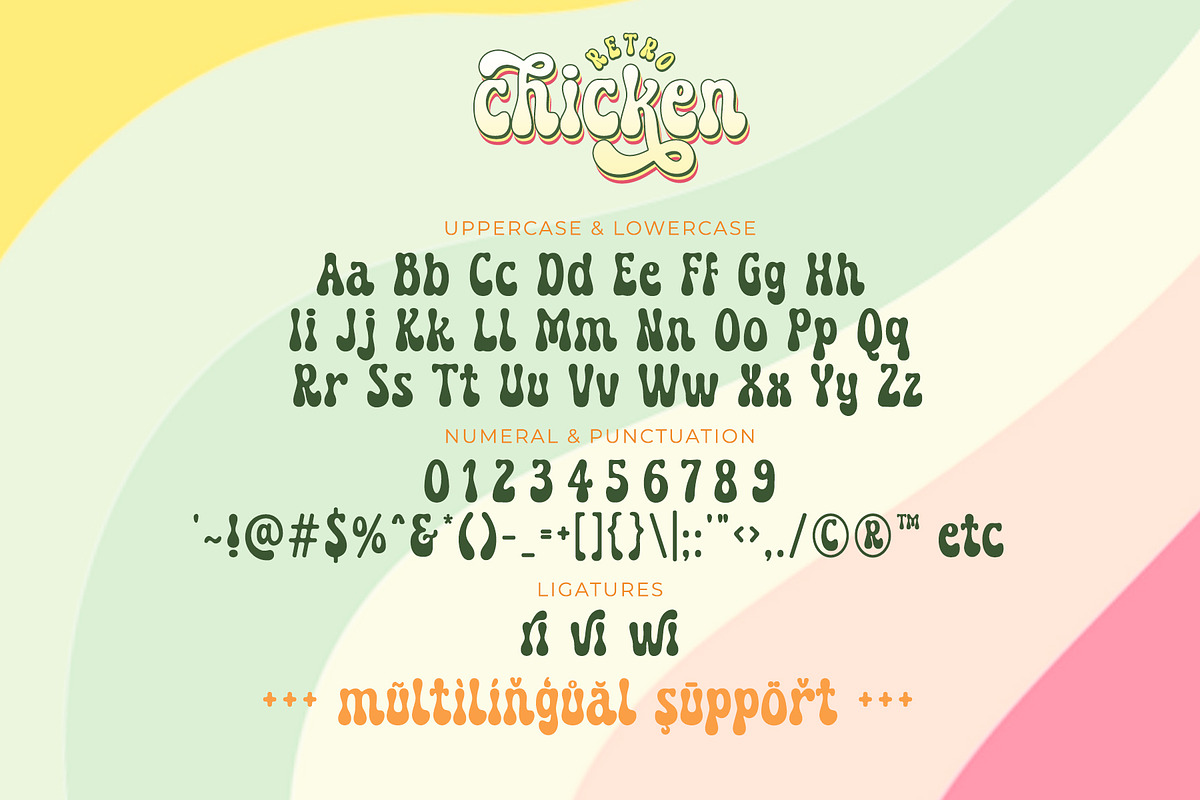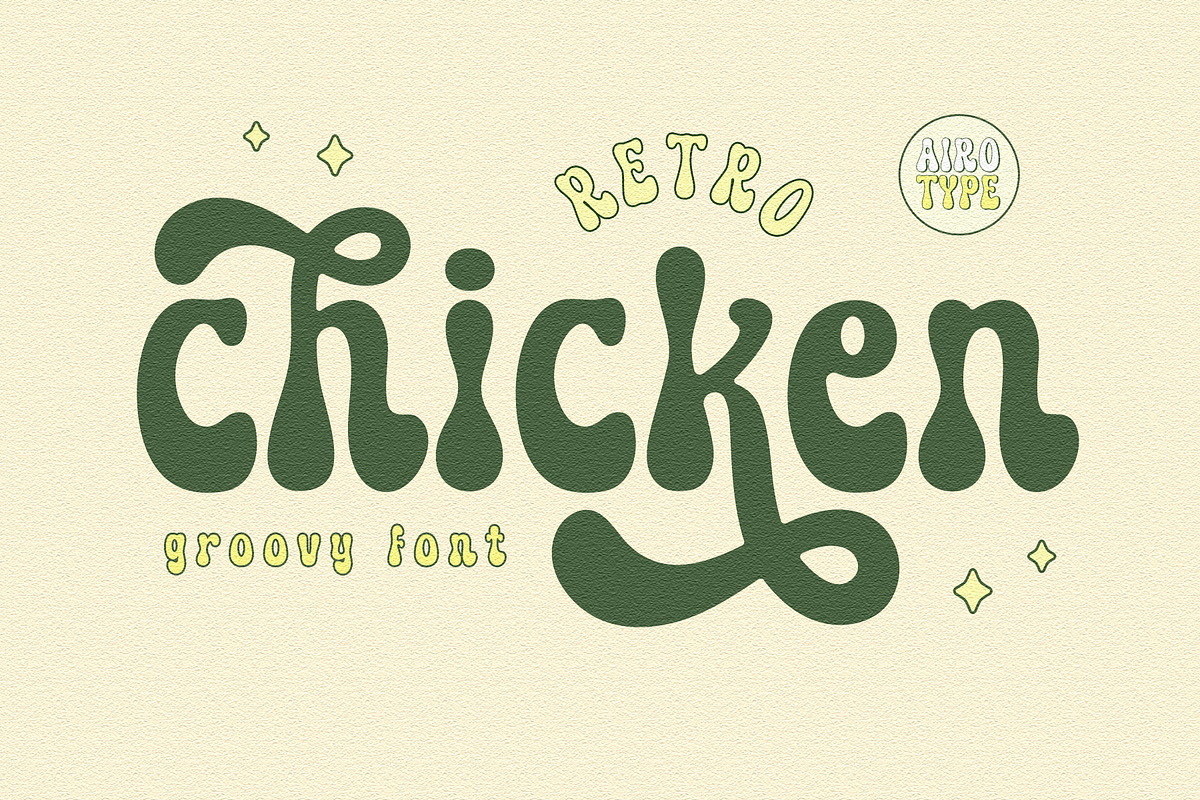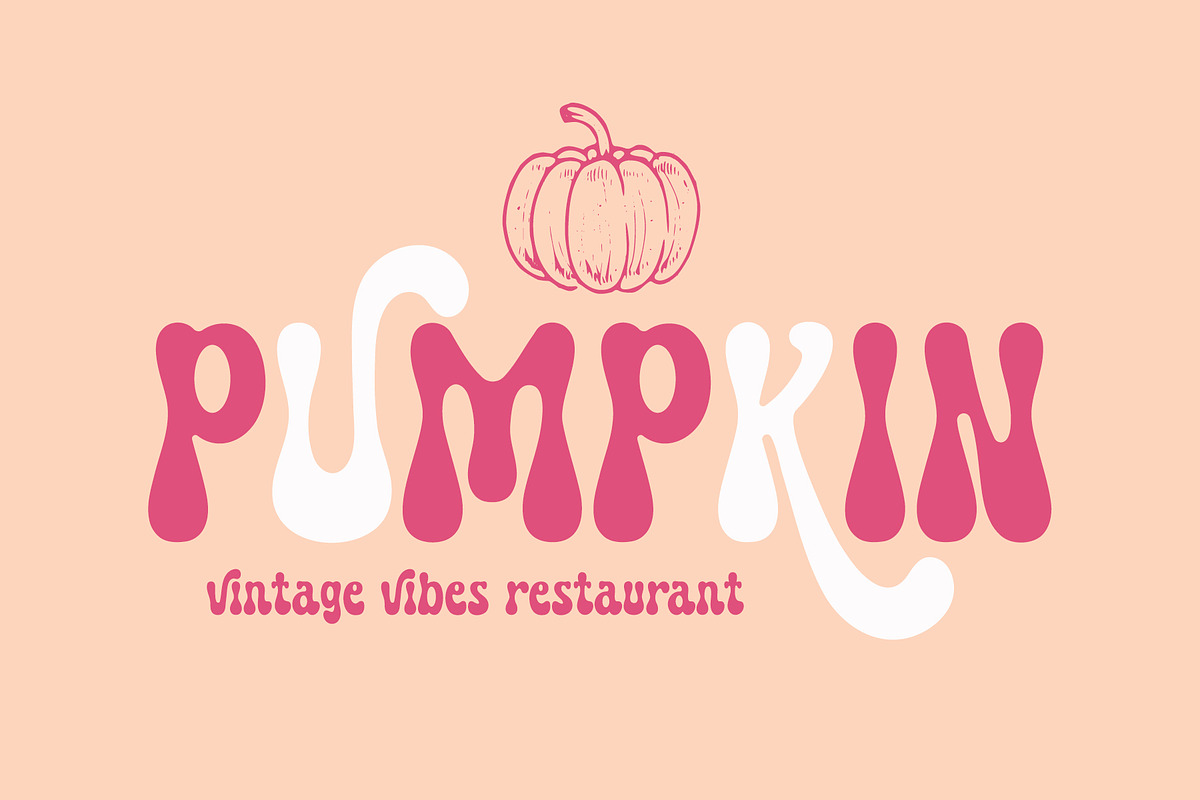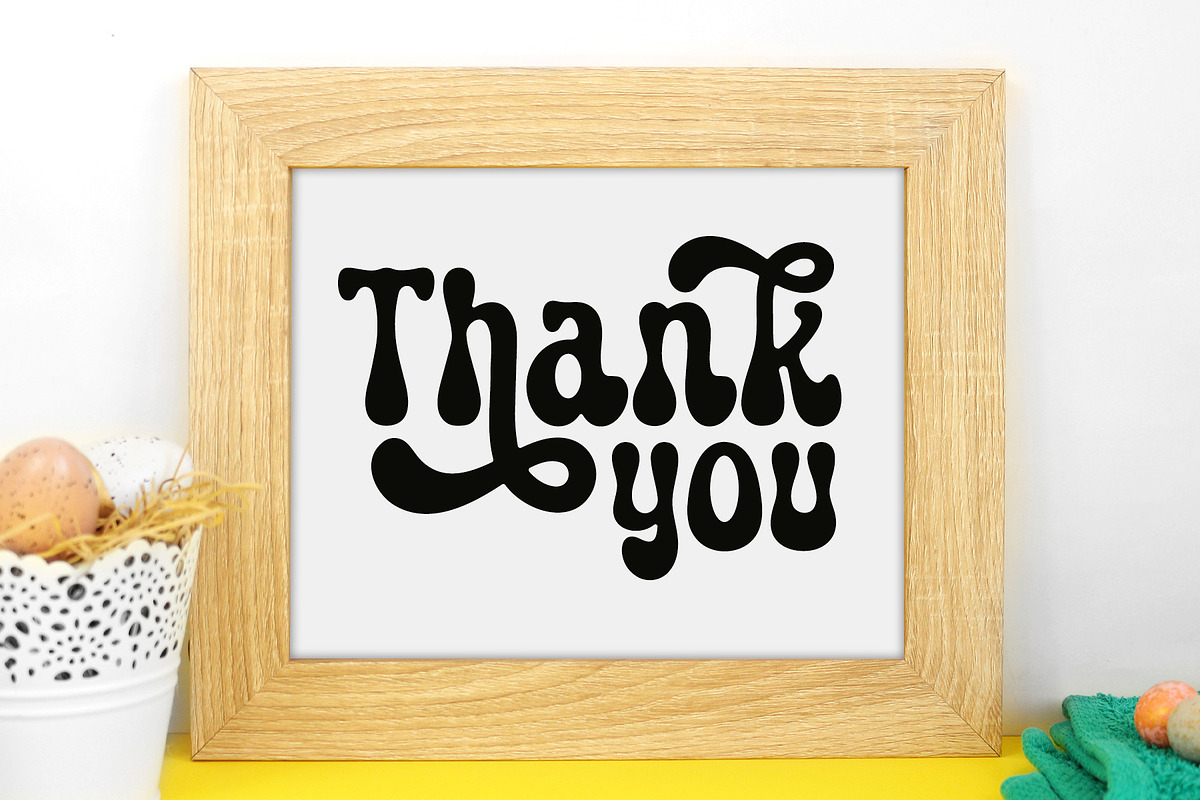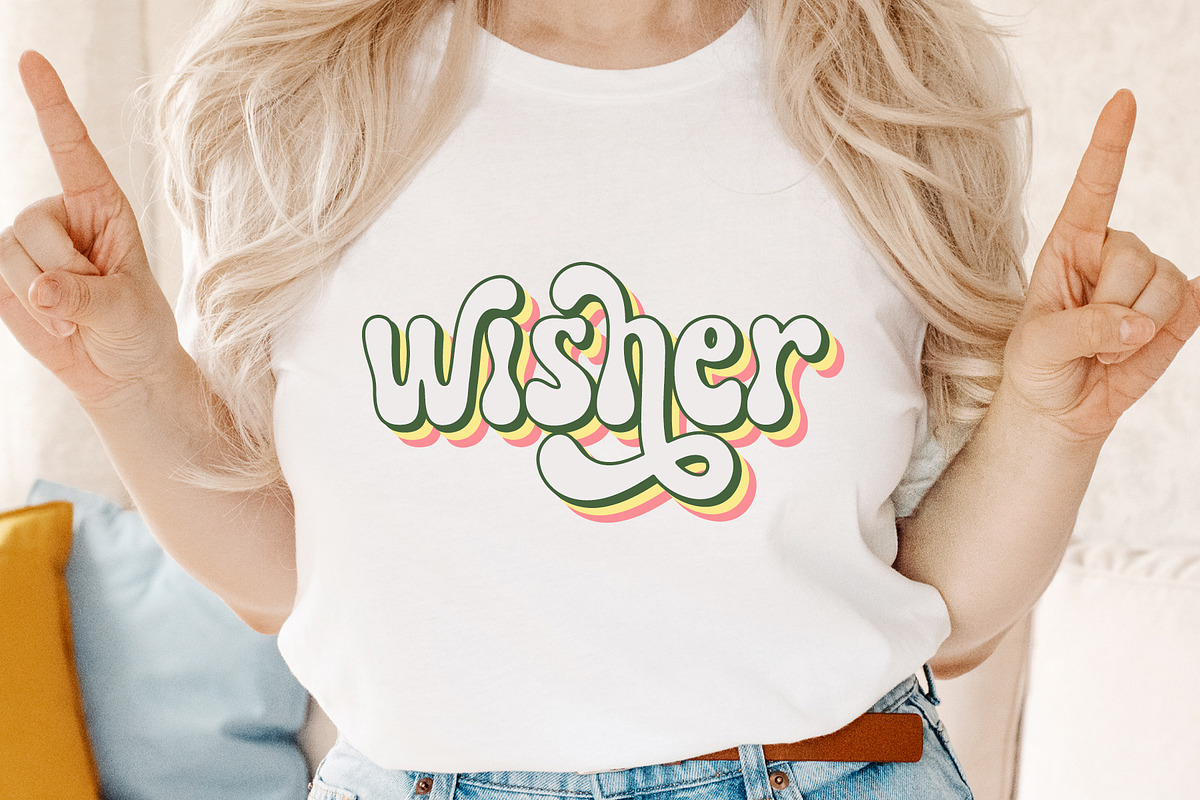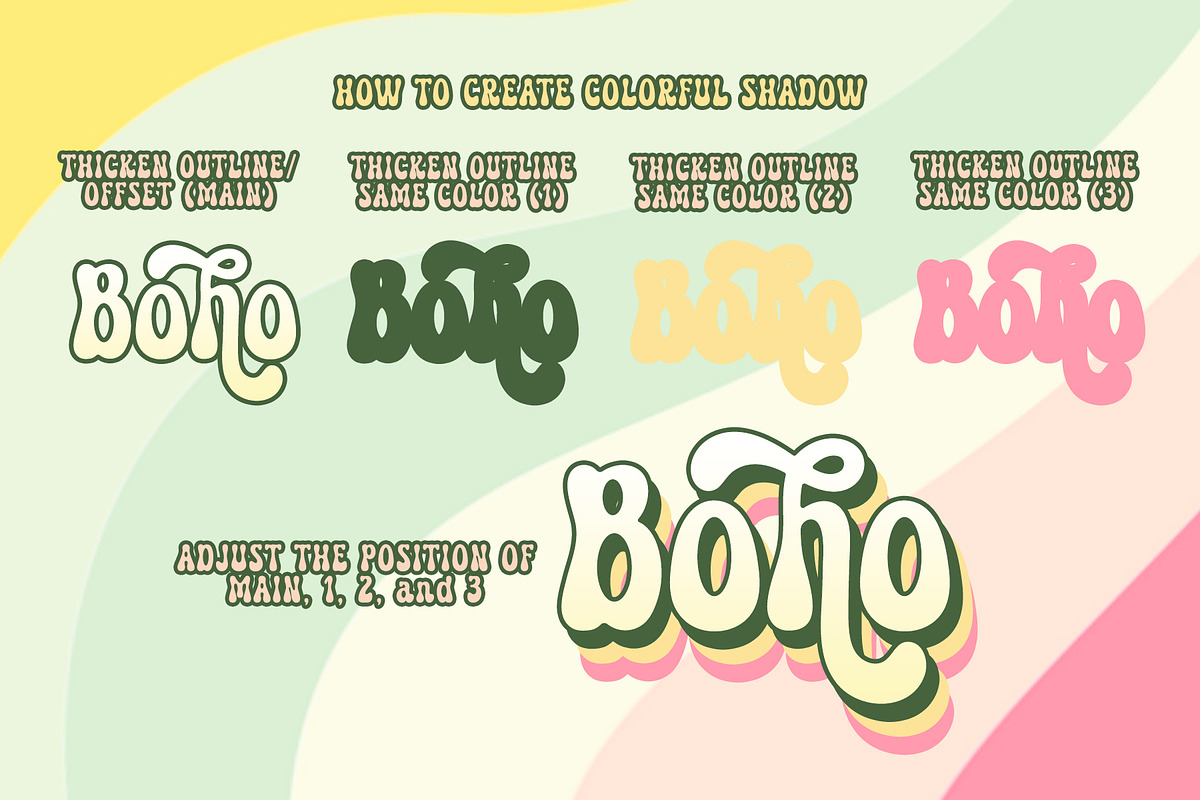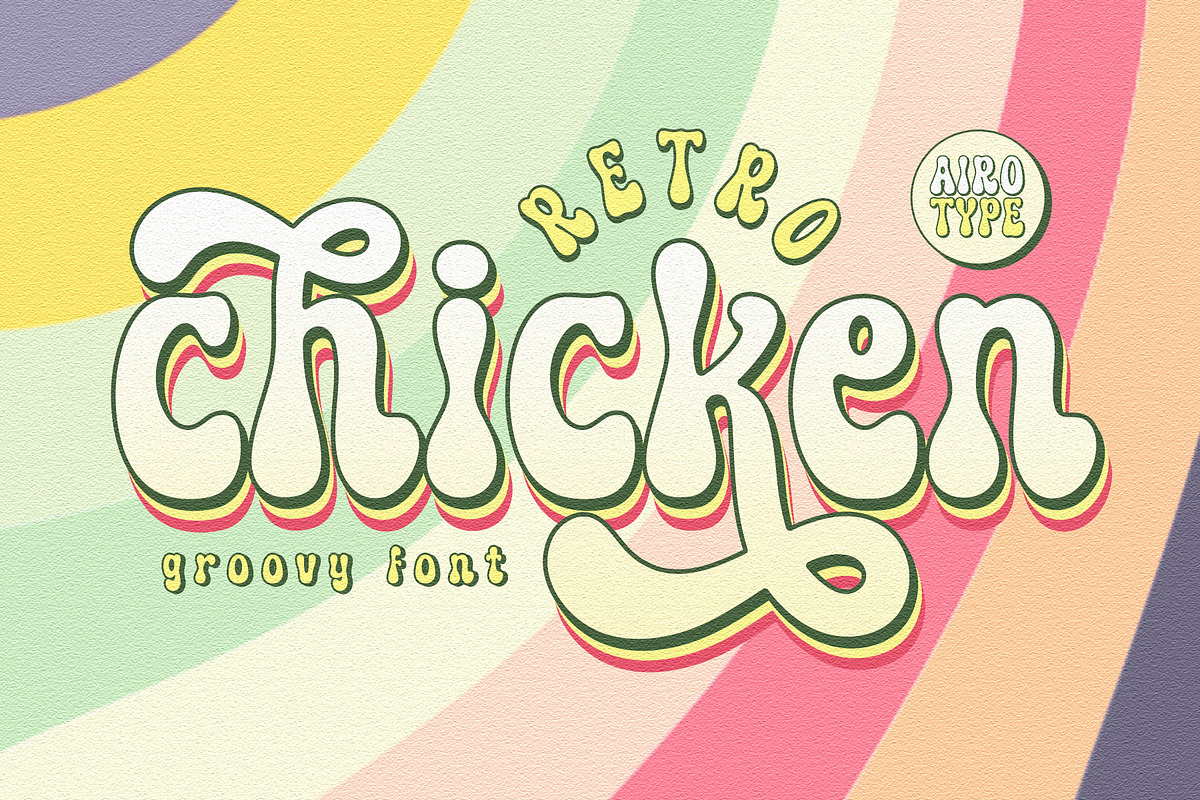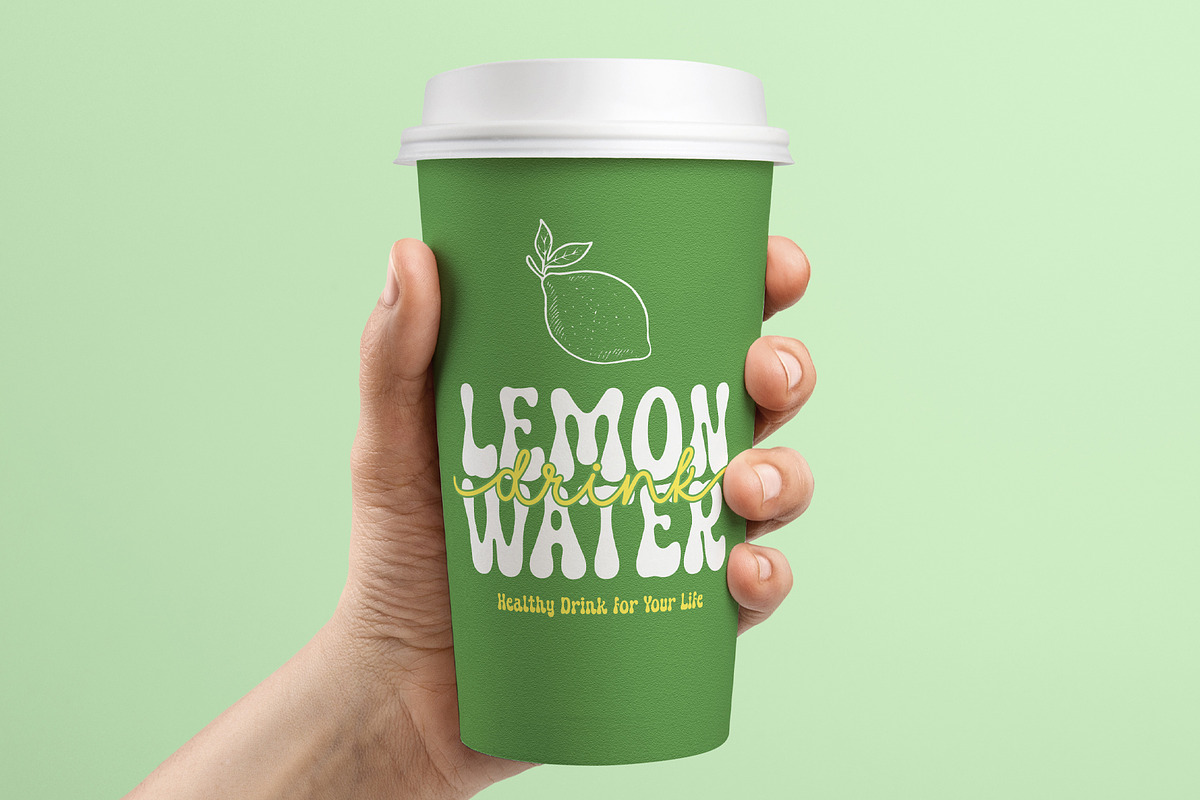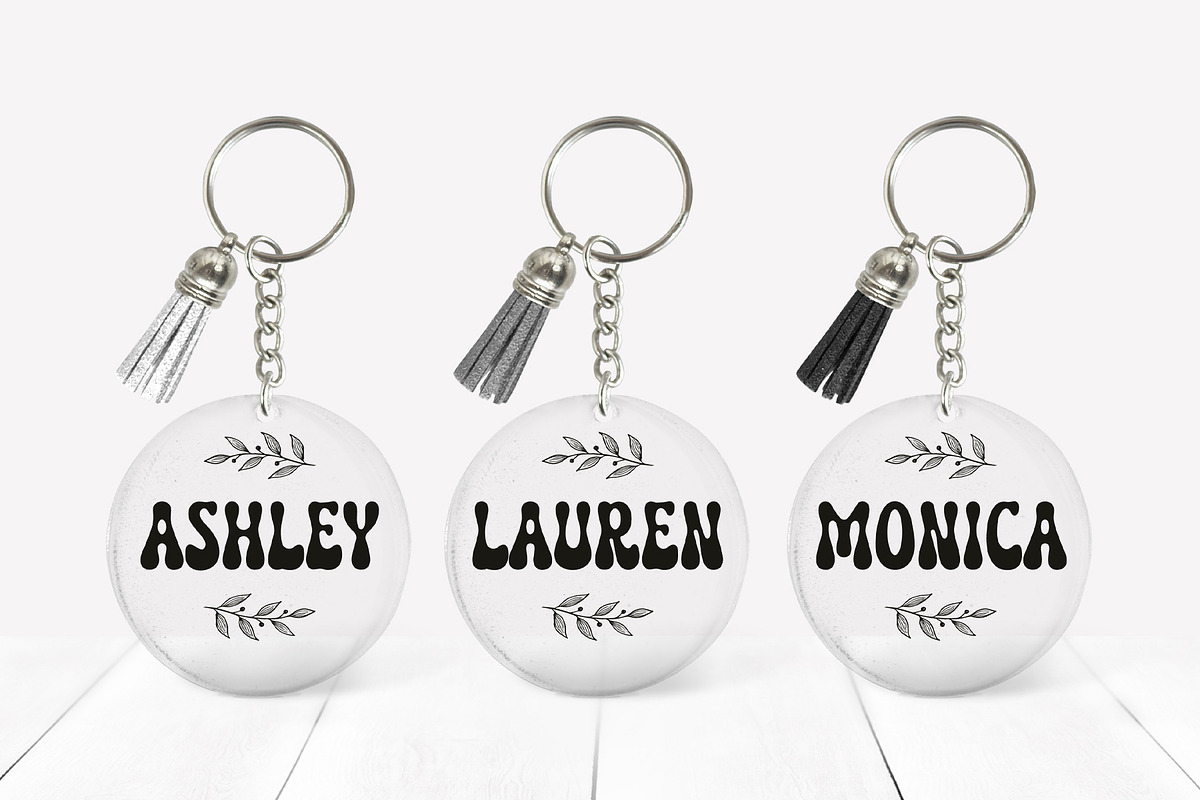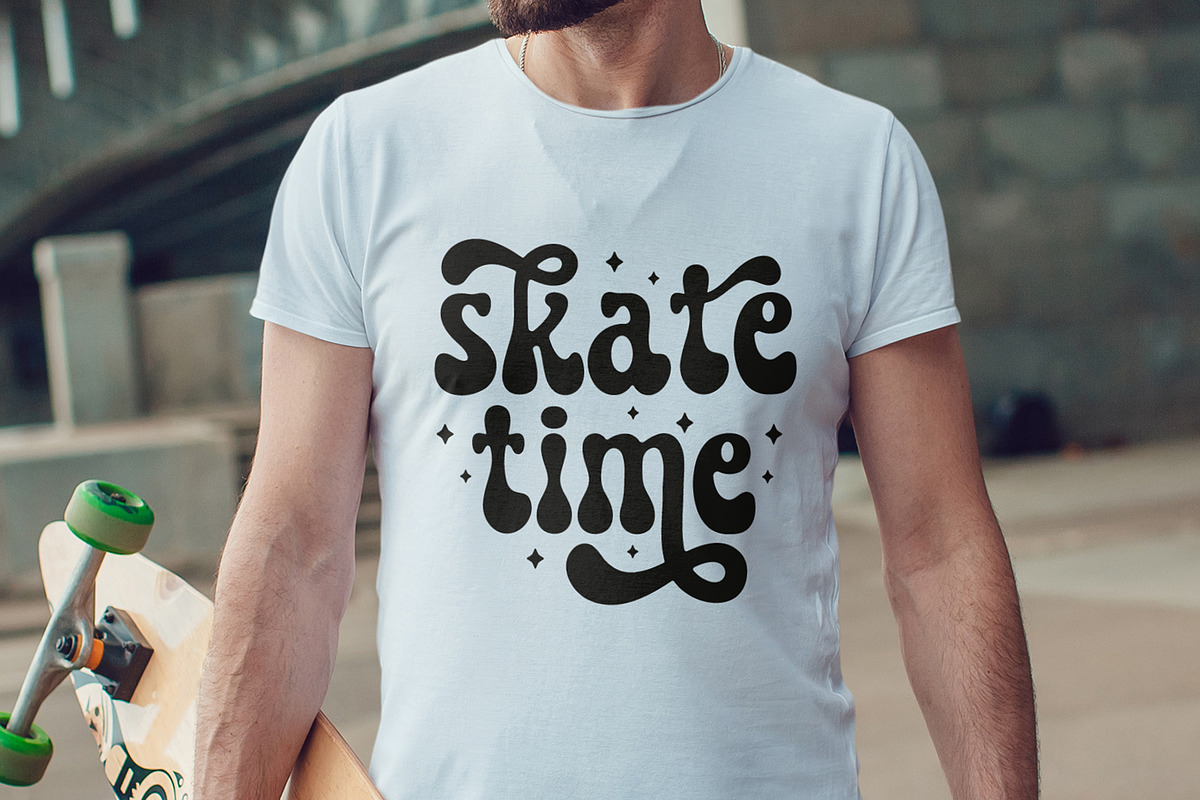
Retro Chicken - Cute Vintage Font
Retro Chicken is fun and cute retro font. It has playful style with vintage touch.
This font is pretty for any projects with fun and vintage style, such as logo, crafting, t-shirt, branding, sticker, sublimation, quotes, greeting cards, and many more.
- Uppercase and Lowercase (include extra glyphs)
- Most Multilingual Accent